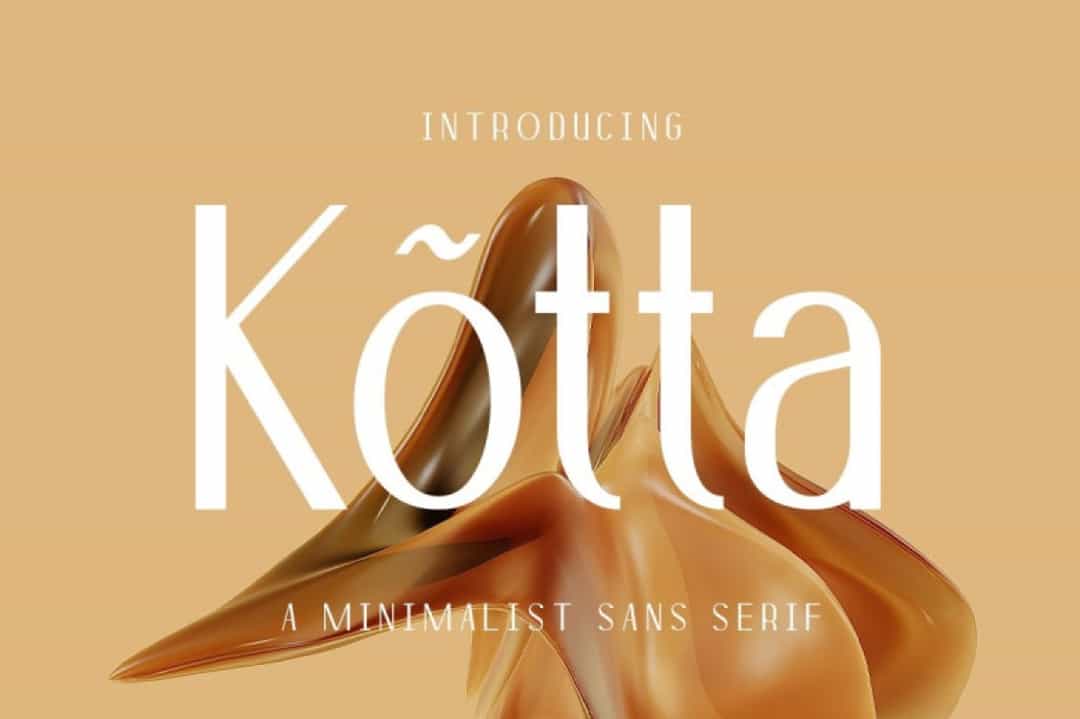
Kotta is an elegant and minimalist sans serif font designed by MayoDesign that can easily complement an incredible range of projects – see for yourself how its beauty stands out!